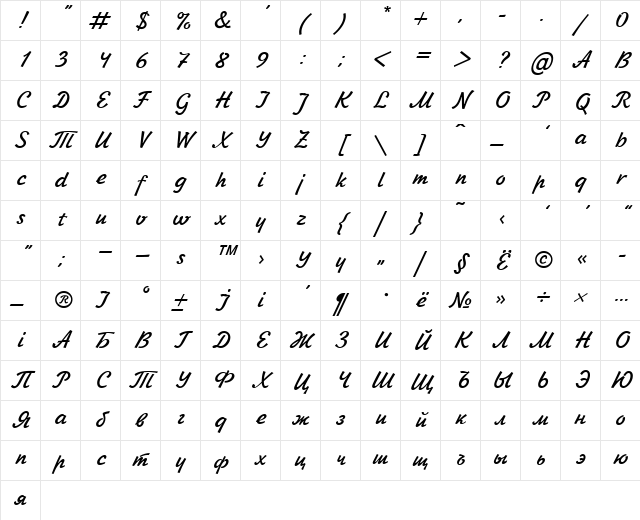
Jikharev Plain Free Font
Jikharev Plain
Design Context for Jikharev
Jikharev is a composed and adaptable typeface that performs quietly and consistently across a wide range of design contexts.